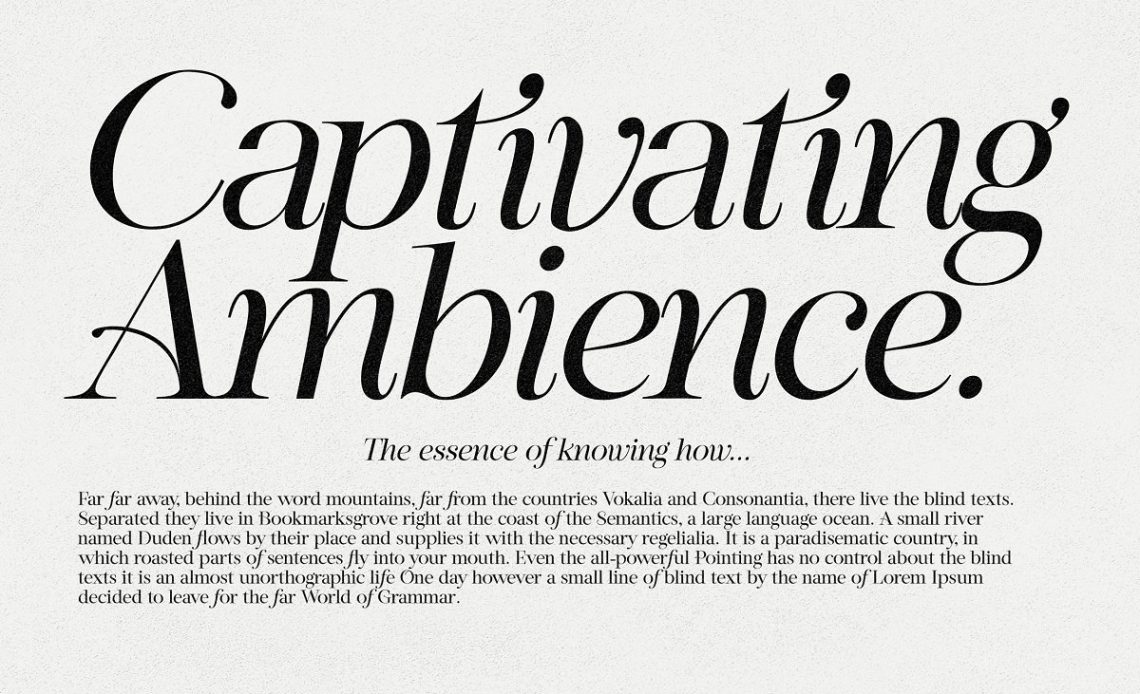
Introducing Isabella Grand, the epitome of style and grace in the world of fonts. Created by the renowned Nicky Laatz, this serif typeface comes in two main styles, Regular and Italic, both designed to work seamlessly together or apart.
Isabella Grand is all about standing out from the crowd. Its bold and unique 'f' sets it apart from regular serifs, making it a perfect fit for projects that require a touch of sophistication and individuality. But for those who prefer a more classic look, a regular 'f' is included in its alternates, giving you the flexibility to choose.
The Italic style, on the other hand, exudes dreamy and sultry vibes, making it an excellent complement to the more serious serif. And with double letter ligatures, such as the fancy 'ti' in the Italic version, you can achieve even more creative possibilities with your designs.
If you're a fan of less fancy uppercase letters, Isabella Grand has got you covered. Simply access them through your OpenType Alternates with Opentype-capable software. And for those who don't have access to Opentype software, a separate 'extra letters' font set will soon be available for purchase.
Isabella Grand supports multiple languages, including Danish, English, French, German, Italian, and more, so you can use it for a wide range of projects. From invitations to branding materials to website designs, this typeface will give your work a touch of elegance and sophistication that will make it stand out.